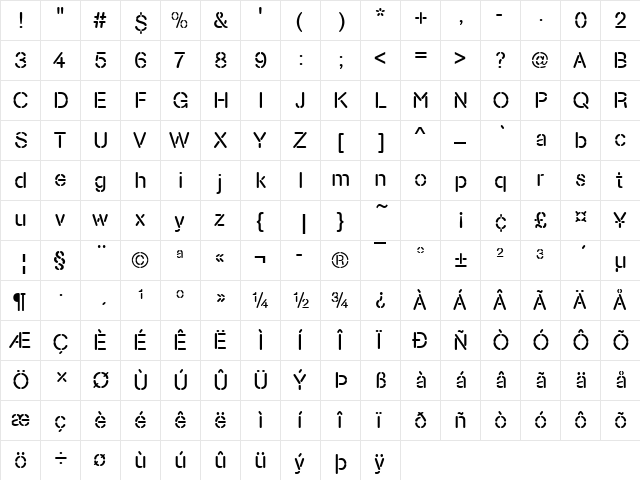
Nimbus Stencil Becker Regular
Design Context for Nimbus Stencil Becker Typeface
Nimbus Stencil Becker has the rough pragmatism of spray-painted stencil signage, adding a raw, street-level authenticity to designs.
Ideal for industrial branding, streetwear, military-adjacent aesthetics, and urban signage projects.
Pro Tip: Pair Nimbus Stencil Becker with raw, utilitarian design elements — exposed concrete textures, flat colour, and minimal ornamentation suit it well.